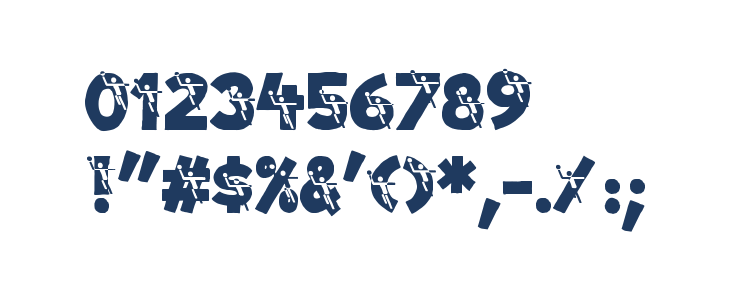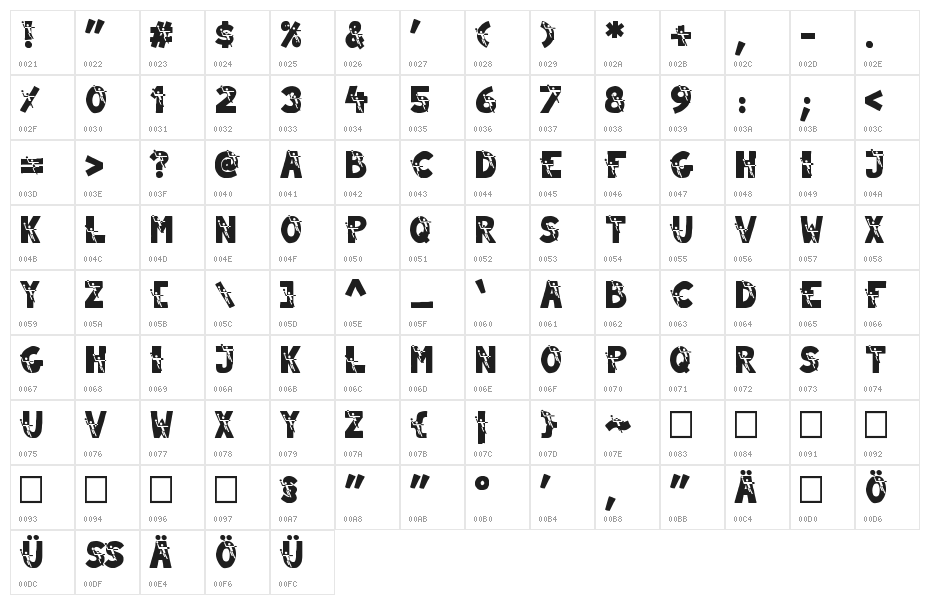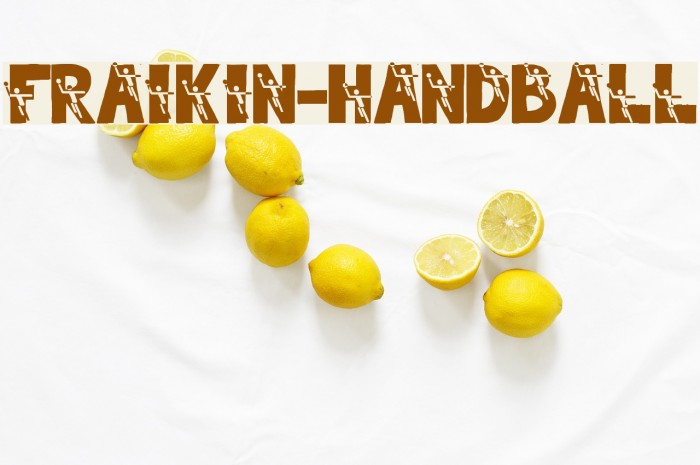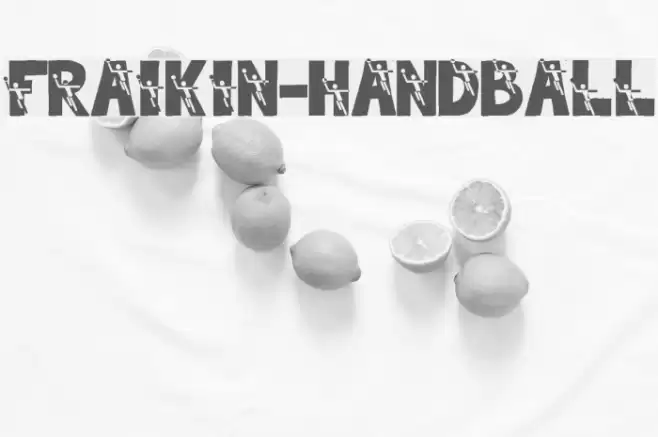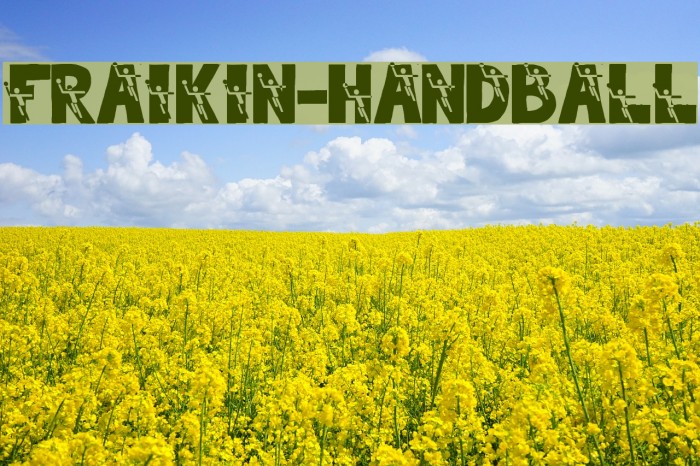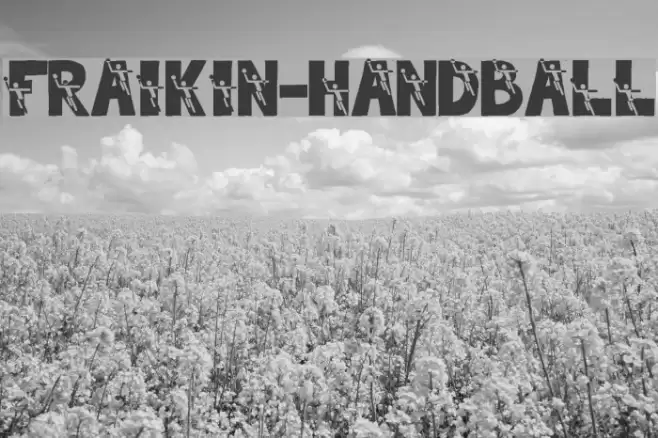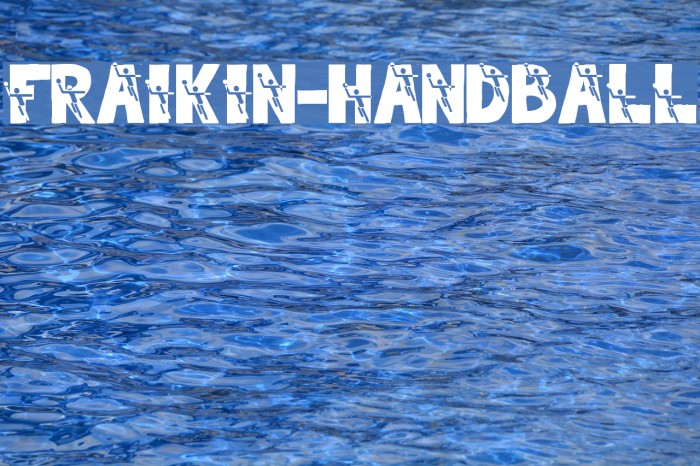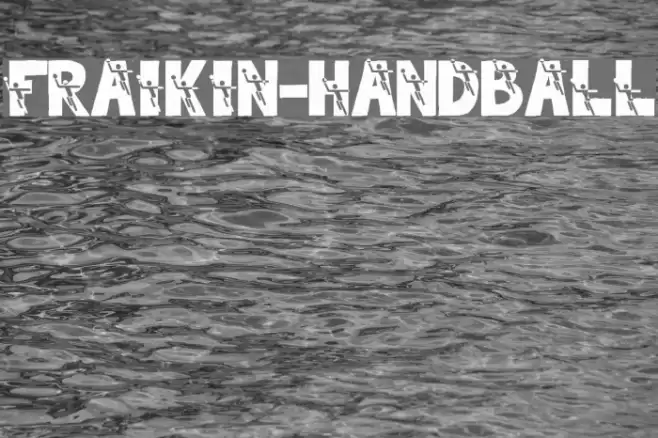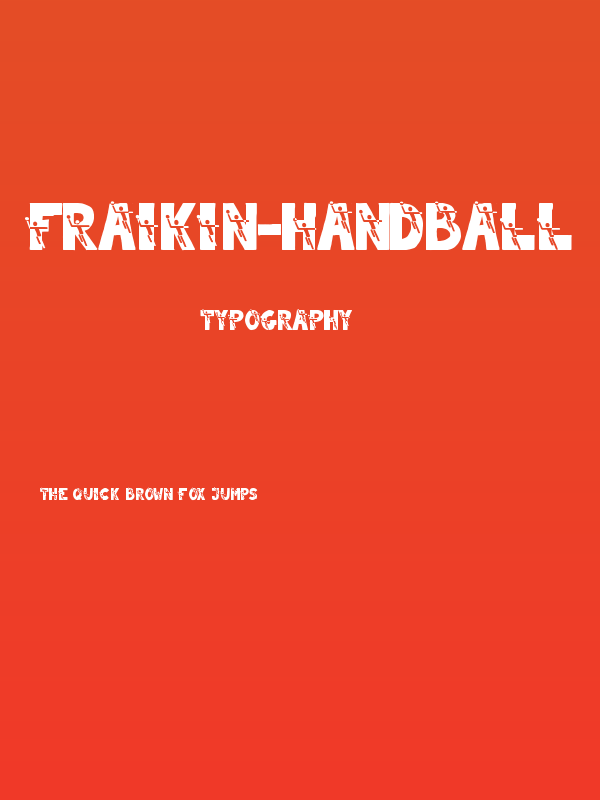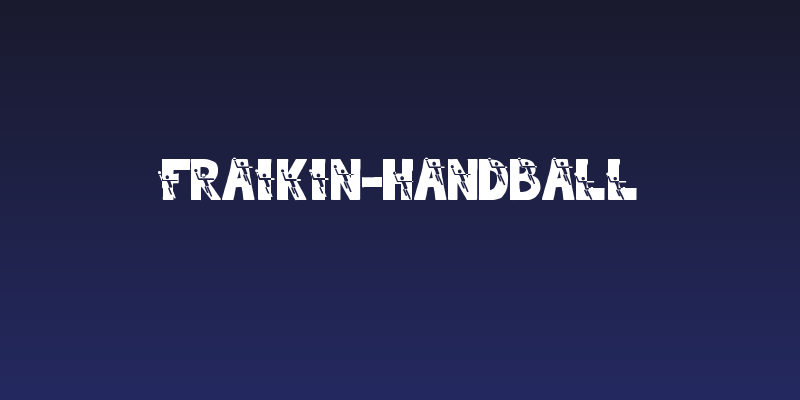
Fraikin-Handball Font
Fraikin-Handball Description
This font features a unique and playful design, incorporating elements of handball players into each character. The bold, blocky letters are interspersed with dynamic figures, creating a sense of movement and energy. The characters are well-defined with a strong presence, making them ideal for attention-grabbing headlines or sports-themed projects. The integration of the handball motif adds a decorative touch, making it stand out in any design. The font maintains a consistent weight and width throughout, ensuring readability while still offering a creative twist.
| Proposed Projects | Ideal for sports branding, event posters, team merchandise, and playful graphic designs. |